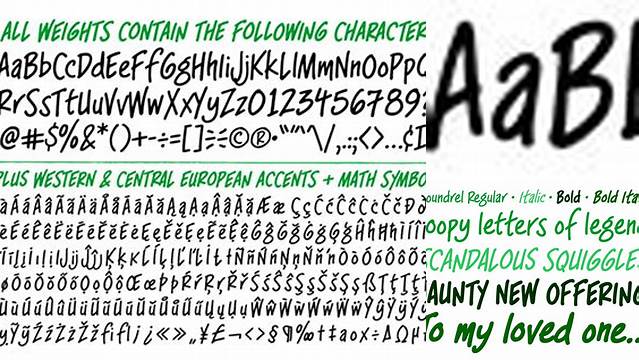
Are you on the hunt for that perfect font to give your project a unique, edgy feel? Scoundrel Regular Font might just be what you're looking for, guys! This font is known for its distinct personality, making it a favorite for designs that need to stand out. In this article, we'll dive deep into the world of Scoundrel Regular Font, exploring its characteristics, uses, and, most importantly, where you can find it for free download. We’ll also touch on some crucial aspects of font licensing and ethical usage, ensuring you can use this awesome font responsibly. So, let’s get started and unlock the potential of Scoundrel Regular Font for your next creative endeavor!
What Makes Scoundrel Regular Font Special?
Scoundrel Regular Font isn't just another typeface; it's a statement. Its unique design blends a touch of vintage charm with a modern twist, making it incredibly versatile for a wide range of projects. Think about the impact a well-chosen font can have on your design. It's not just about readability; it's about conveying a mood, a message, and a personality. This font excels in this aspect, offering a distinct character that sets it apart from more generic fonts. The slight imperfections and the handcrafted feel give it a human touch, making it perfect for projects that aim to feel authentic and relatable. Whether you're designing a logo, a poster, or even website headers, Scoundrel Regular Font can bring a unique flavor to your work. Its strong, assertive lines make it ideal for headlines and titles, grabbing the viewer's attention immediately. At the same time, its subtle elegance allows it to work well in body text, providing a comfortable reading experience without sacrificing its distinctive style. The beauty of Scoundrel Regular Font lies in its ability to be both bold and refined, making it a valuable asset in any designer's toolkit. Furthermore, the availability of different weights and styles within the Scoundrel family enhances its versatility. From a light, airy feel to a bold, commanding presence, you can adapt the font to suit the specific needs of your project. This adaptability is crucial in maintaining consistency across different design elements, ensuring a cohesive and professional look. When you choose Scoundrel Regular Font, you're not just choosing a set of letters; you're choosing a design element that can significantly enhance your brand's identity and messaging. Remember, the right font can speak volumes, and Scoundrel Regular Font has a lot to say.
Using Scoundrel Regular Font in Your Projects: Ideas and Inspiration
Alright, you've got Scoundrel Regular Font downloaded and ready to go. Now, let's talk about how to actually use it! This font is super versatile, but knowing how to make the most of its unique characteristics can really elevate your designs. Think about the overall feel you want to create. Scoundrel Regular Font has a certain vintage charm, so it's perfect for projects that aim for a classic or retro vibe. Imagine using it for a poster promoting a local music event or a logo for a craft brewery. Its slightly rugged edges and strong letterforms give it a handcrafted feel that's both eye-catching and authentic. But don't think it's only limited to vintage designs. Scoundrel Regular Font can also add a touch of personality to more modern projects. Its unique character makes it stand out in website headers, social media graphics, and even print materials like brochures and business cards. The key is to use it strategically. Consider pairing Scoundrel Regular Font with a simpler, more neutral sans-serif font for body text. This creates a nice contrast and ensures readability while still allowing Scoundrel Regular Font to shine in headlines and titles. Experiment with different sizes and weights to see what works best for your design. A larger size can emphasize its boldness, while a smaller size can highlight its subtle details. Don't be afraid to play around with color too. Scoundrel Regular Font looks fantastic in a variety of palettes, from classic black and white to vibrant, modern hues. If you're feeling stuck, look for inspiration online. Check out design blogs, social media, and online portfolios to see how other designers are using similar fonts. Pay attention to the context and the overall aesthetic to get ideas for your own projects. Remember, the goal is to use Scoundrel Regular Font in a way that enhances your design and communicates your message effectively. With a little creativity and experimentation, you can unlock its full potential and create stunning visuals that truly stand out.
Alternatives to Scoundrel Regular Font
Okay, so maybe Scoundrel Regular Font isn't exactly what you were envisioning, or perhaps you're just looking to expand your font library with similar styles. No worries! There's a whole universe of amazing fonts out there, and exploring alternatives can be a fun way to discover new favorites. When looking for alternatives, think about what it is about Scoundrel Regular Font that you like. Is it the vintage feel? The slightly rough edges? The strong, assertive character? Identifying these key characteristics will help you narrow down your search. If you're drawn to the vintage vibe, consider fonts like Playfair Display, Lora, or Merriweather. These typefaces have a classic elegance that can add a touch of sophistication to your designs. If it's the handcrafted feel you're after, check out fonts like Amatic SC, Permanent Marker, or Architects Daughter. These fonts have a more informal, handwritten style that's perfect for projects that need a personal touch. For fonts with a similar boldness and impact, consider Montserrat, Roboto, or Open Sans. These sans-serif fonts are clean and modern but still have a strong presence that can make your headlines stand out. Don't forget to explore different font foundries too. Each foundry has its own unique style and personality, so browsing their collections can lead you to some unexpected gems. Websites like Google Fonts, Adobe Fonts, and MyFonts are great places to start your search. Experiment with different pairings. Sometimes, the perfect alternative isn't a single font but a combination of two or more typefaces that complement each other. Try pairing a bold display font with a simple body text font to create a balanced and visually appealing design. Ultimately, the best alternative to Scoundrel Regular Font is the one that best suits your project's needs and aesthetic. Don't be afraid to try new things and push your creative boundaries. The world of typography is vast and exciting, and there's always something new to discover!
Conclusion: Embrace the Scoundrel Regular Font and Design Responsibly
So, we've journeyed through the world of Scoundrel Regular Font, exploring its unique qualities, how to find it for free (legally, of course!), and how to use it effectively in your designs. We've also touched on the crucial aspects of font licensing and explored some fantastic alternatives. The key takeaway here is that typography is a powerful tool in the world of design. Choosing the right font can elevate your project, convey your message, and create a lasting impression. Scoundrel Regular Font, with its blend of vintage charm and modern flair, is a prime example of a typeface that can add character and personality to your work. But remember, with great fonts comes great responsibility! Always prioritize ethical practices by downloading from reputable sources and respecting font licenses. This ensures that you're not only protecting yourself from legal issues but also supporting the creative community. Whether you decide to embrace Scoundrel Regular Font or explore other typefaces, the most important thing is to have fun and experiment. Typography is an art form, and there are no strict rules. Let your creativity guide you, and don't be afraid to push the boundaries. So go forth, design responsibly, and let your fonts speak volumes!